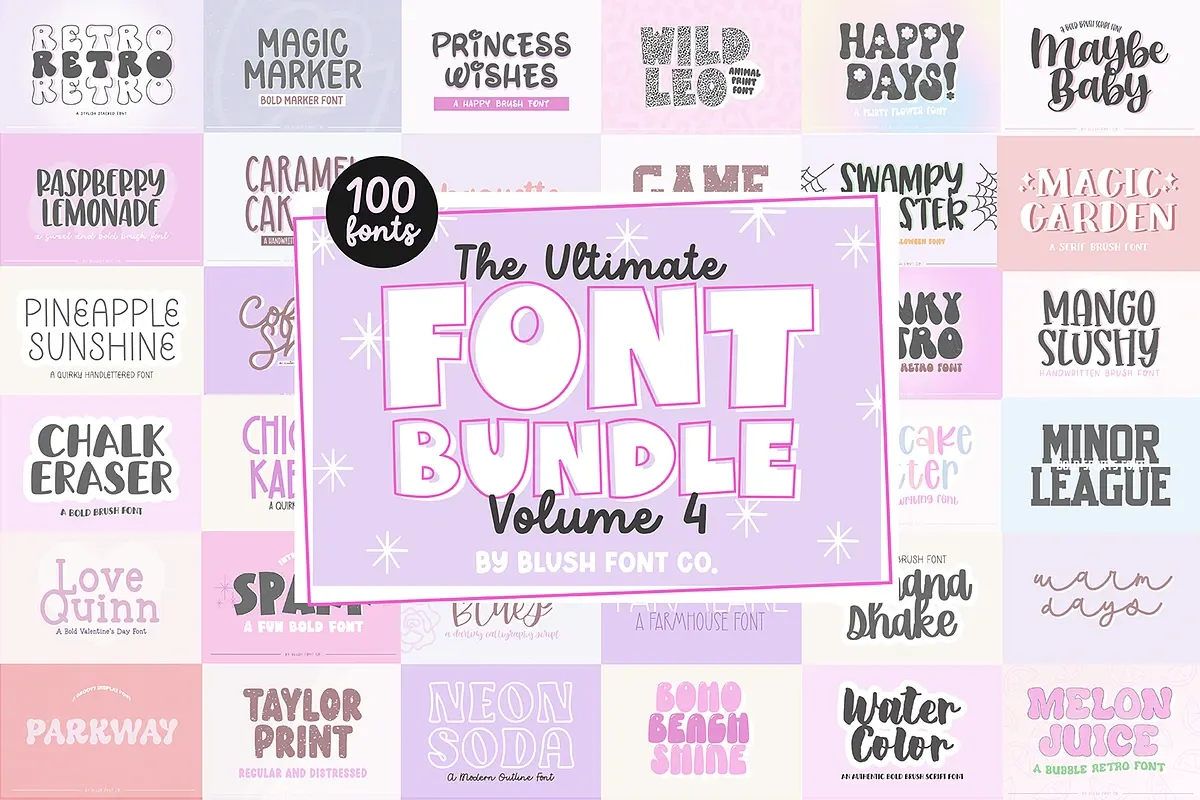
100 FONTS - Ultimate Font Bundle V4 Free Download is a massive collection of 100 premium fonts that covers every style you could need for your design projects. From elegant scripts and modern sans serifs to decorative display fonts and vintage-inspired typefaces, this bundle has everything you need to elevate your creative work. Whether you're designing for branding, websites, invitations, social media, or print materials, the Ultimate Font Bundle V4 offers endless possibilities.
This bundle is perfect for designers looking for a wide range of fonts, ensuring you have the perfect typeface for any project—whether it’s minimalist, bold, playful, or sophisticated.